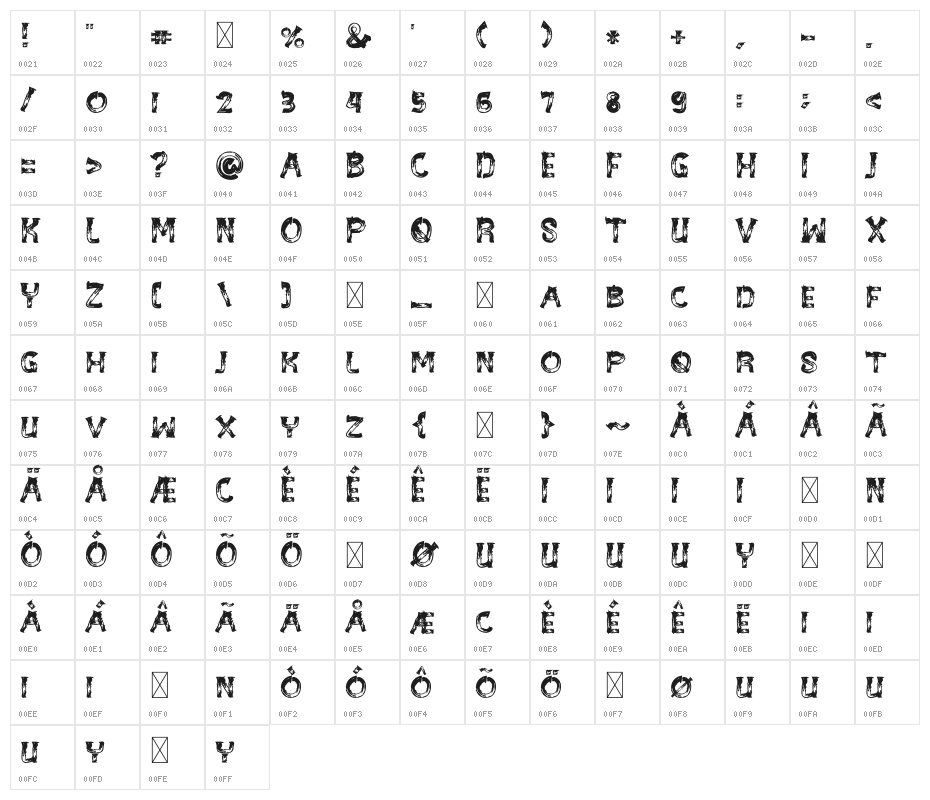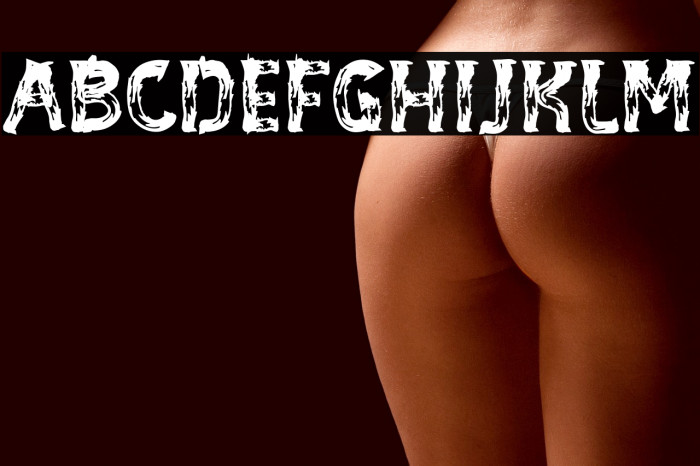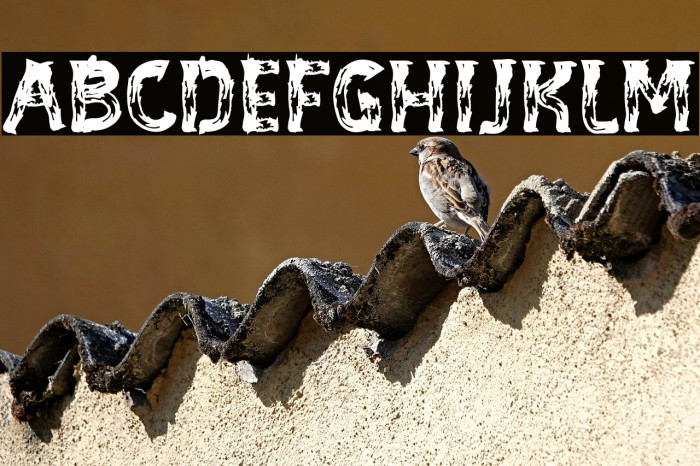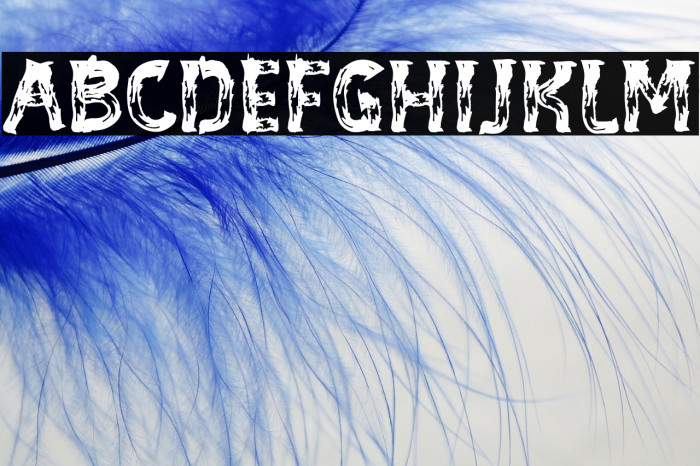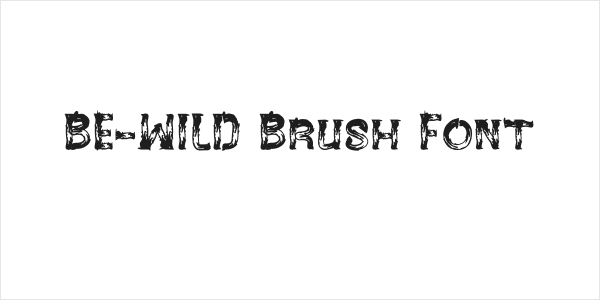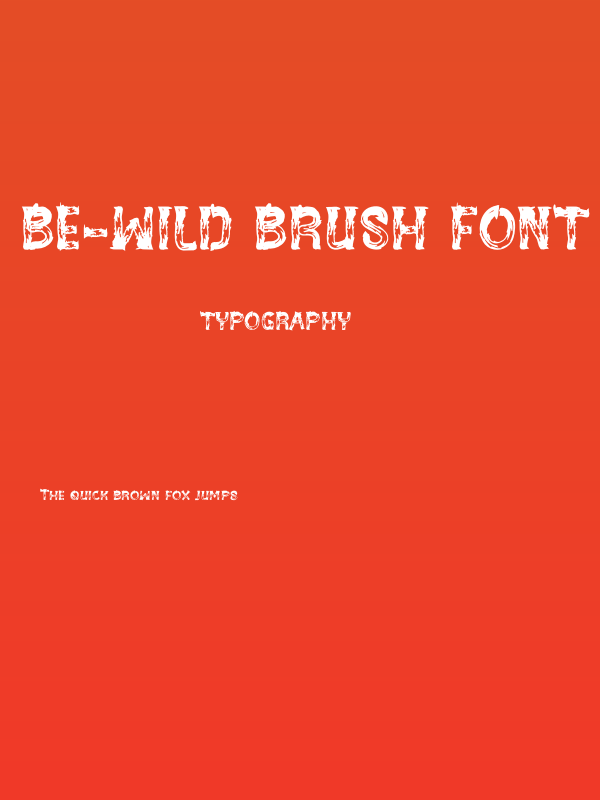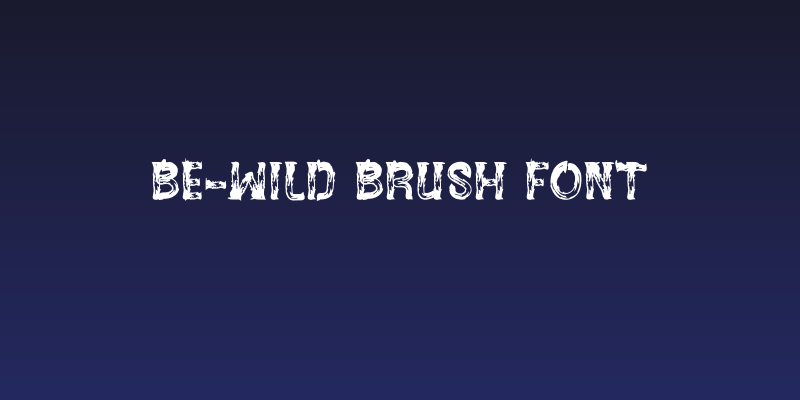
BE-WILD Brush Font Font
BE-WILD Brush Font Description
This font exudes a raw, energetic vibe with its brush-stroke style, creating an impression of wildness and spontaneity. The characters are bold and dynamic, with irregular edges and varying thickness that mimic the natural flow of hand-painted letters. Each letter appears as if it has been crafted with a brush dipped in ink, leaving behind a trail of artistic chaos. The uppercase and lowercase letters maintain a consistent style, while the numbers and special characters add to the font's versatility. This font is perfect for projects that require a bold, artistic touch, such as posters, album covers, or any design that aims to capture attention with its unique, untamed aesthetic.
| Use Case | Headlines, Logos, Artistic projects |
| Proposed Projects | Ideal for posters, album covers, artistic branding, and eye-catching headlines. |